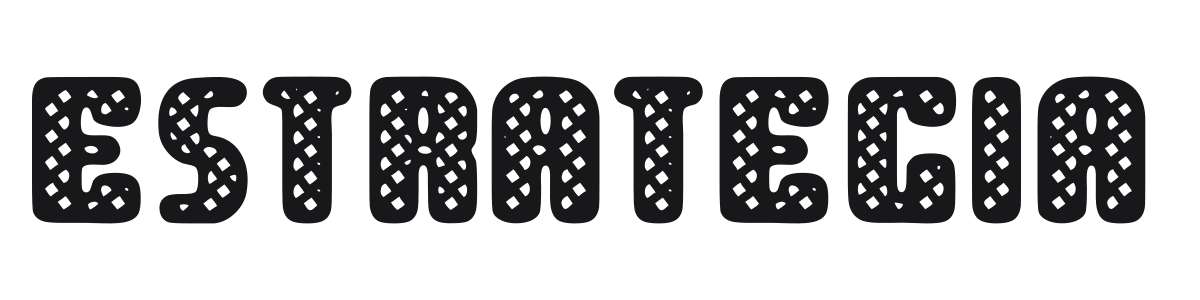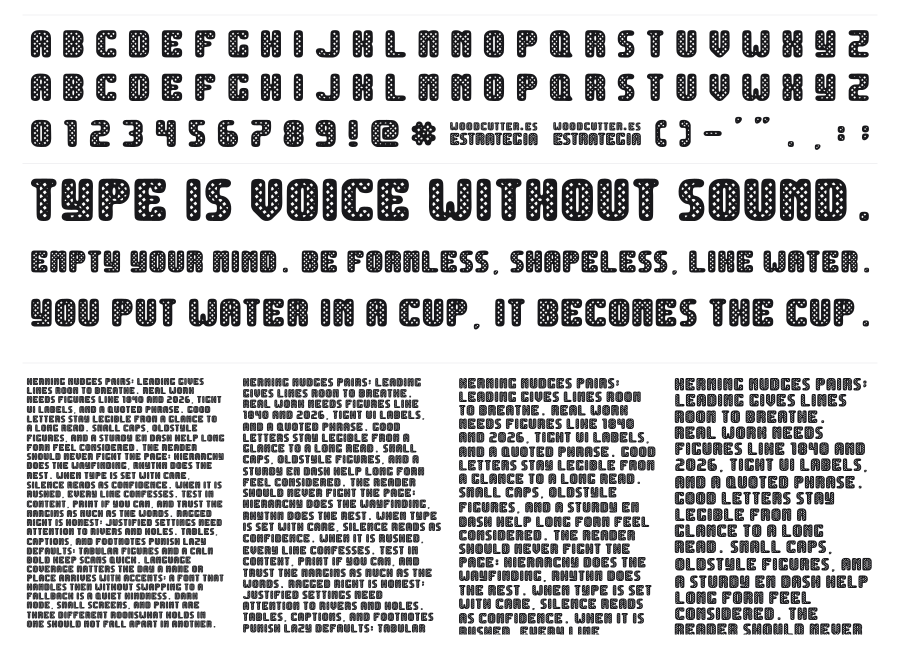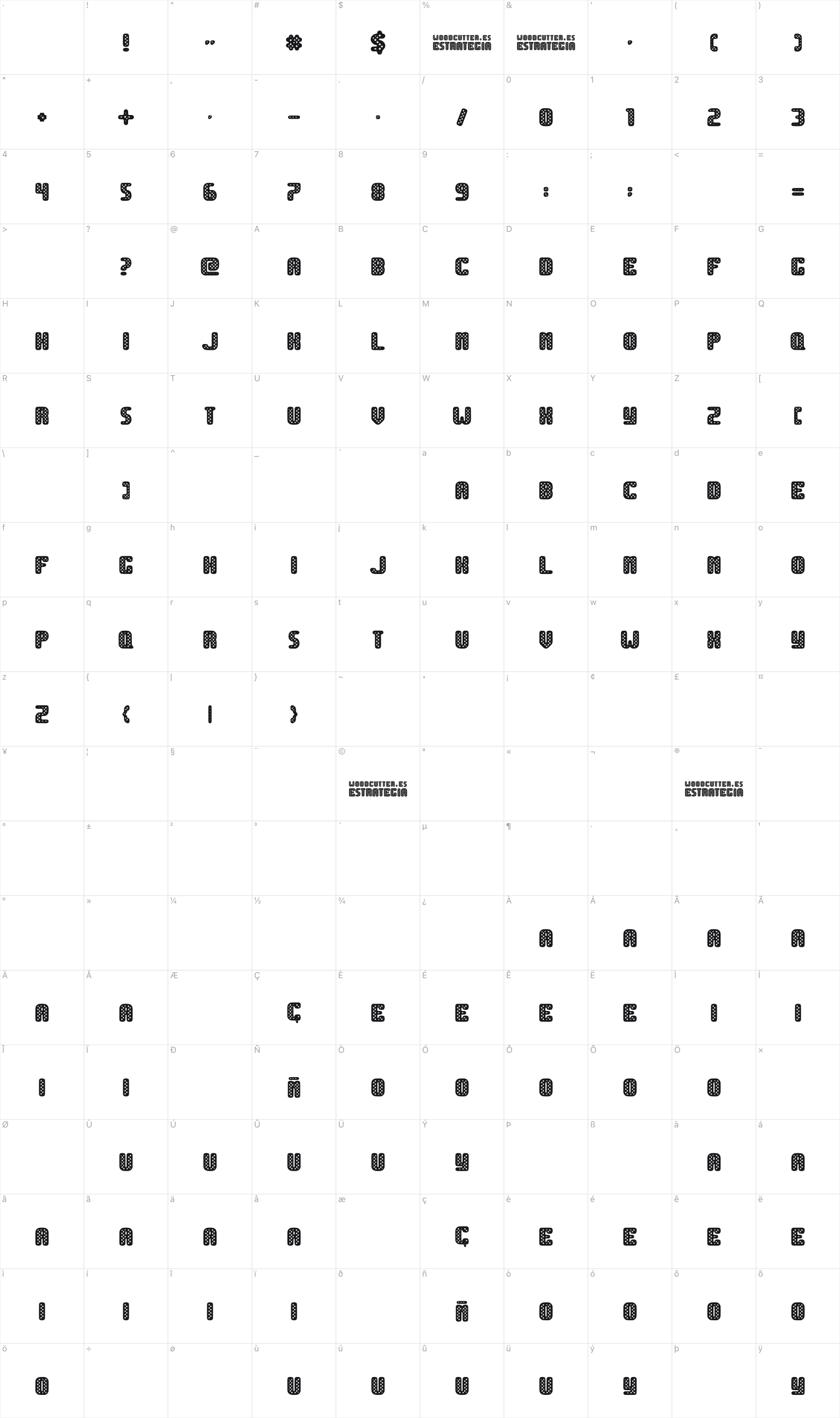
Estrategia
Estrategia is a heavy rounded display font filled with a repeating diamond perforation pattern that gives each character a bold, tactile texture. The thick, blocky construction makes it immediately readable at large sizes, while the internal grid adds visual complexity. It carries an energetic street-art quality that works well on posters, packaging, and anything needing loud personality.